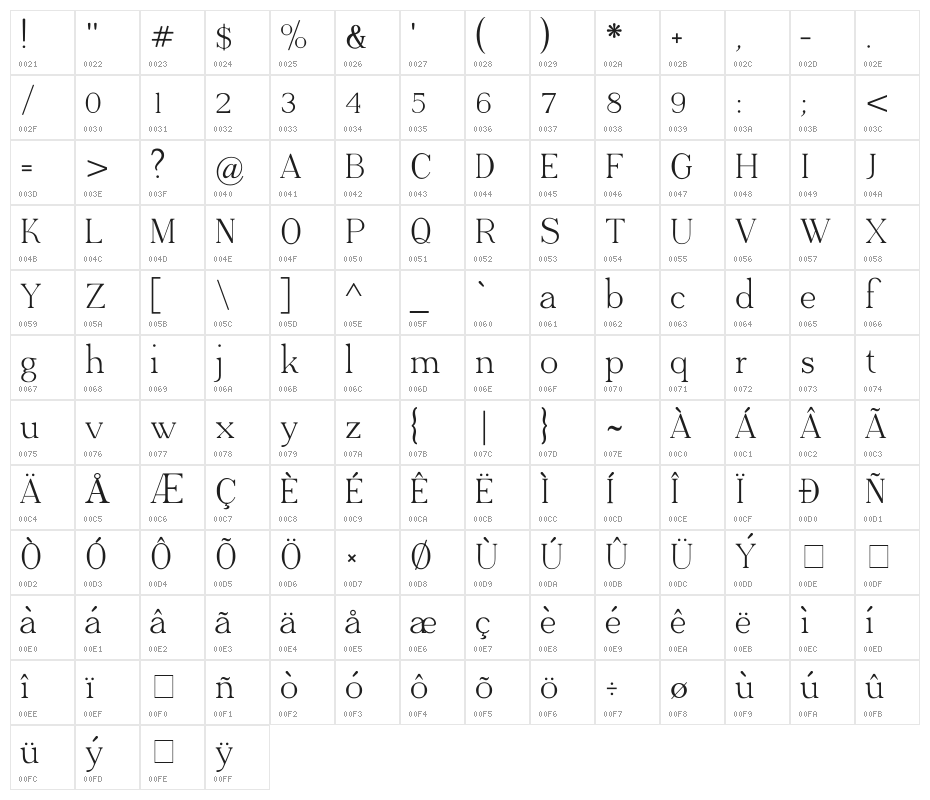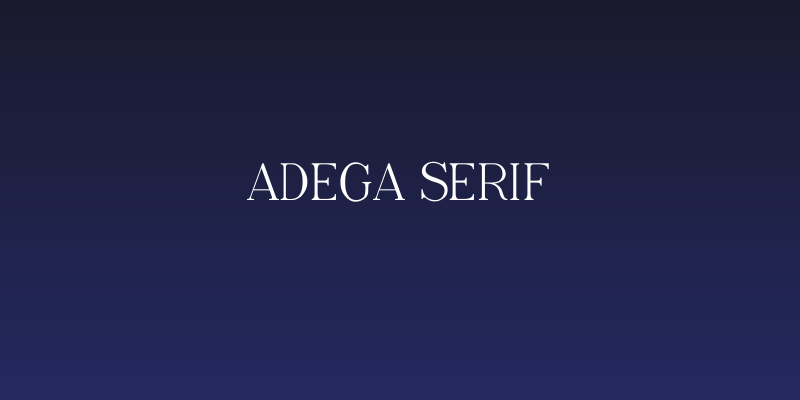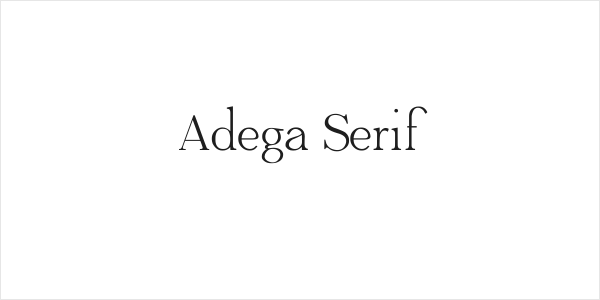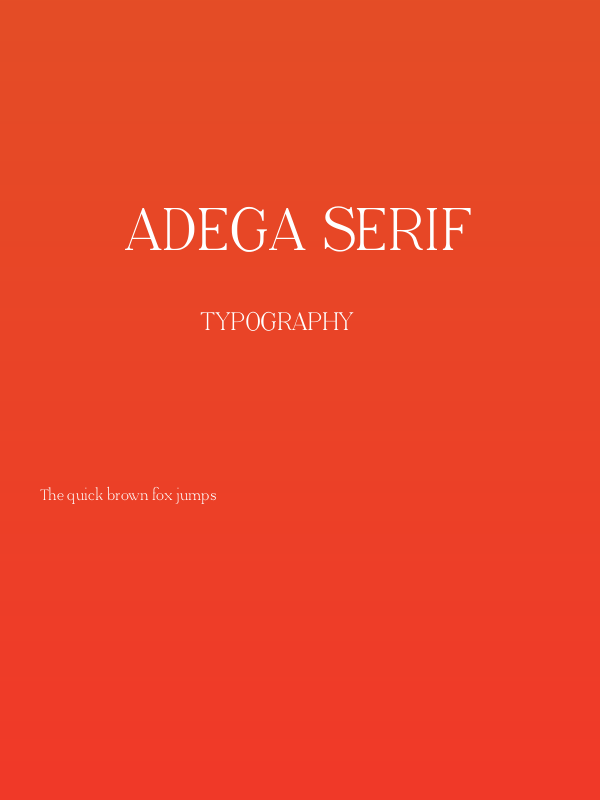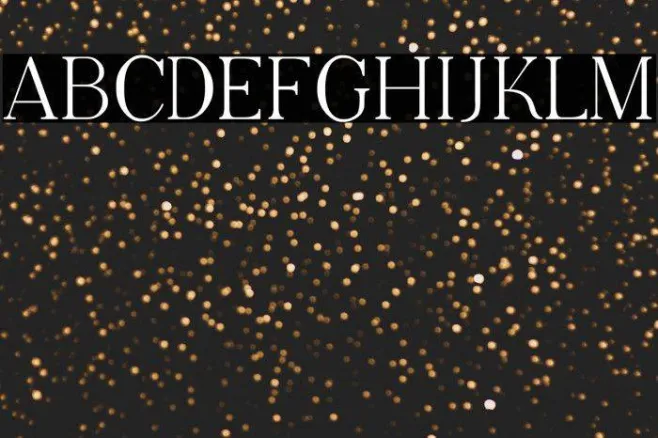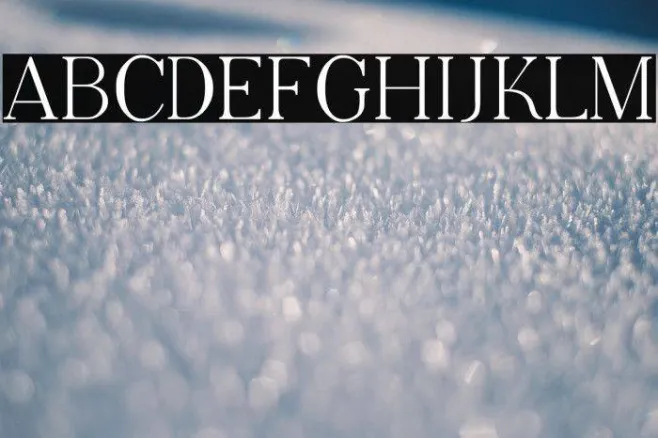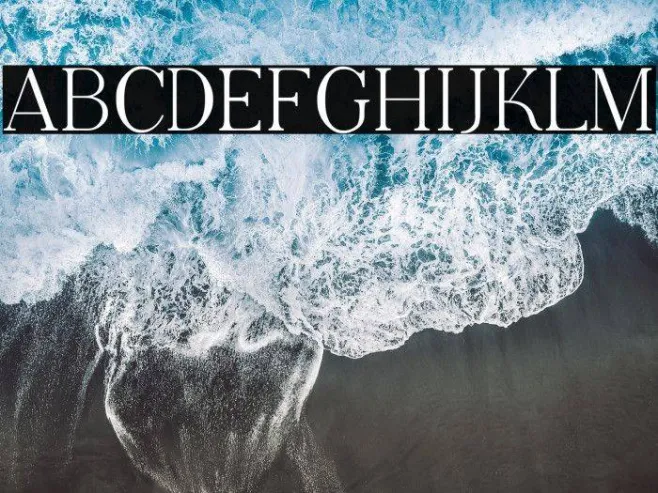
Adega Serif Font
Adega Serif Description
This font exhibits a classic serif style with elegant and refined strokes. The uppercase letters are tall and stately, featuring sharp serifs that add a touch of sophistication. The lowercase letters maintain a consistent style, with smooth curves and balanced proportions. Numbers are clear and legible, making them suitable for various applications. The special characters are well-integrated, enhancing the font's versatility. Overall, this font combines traditional serif elements with a modern twist, making it suitable for both formal and contemporary designs.
| Proposed Projects | Ideal for editorial design, book covers, formal invitations, and branding projects that require a touch of elegance. |